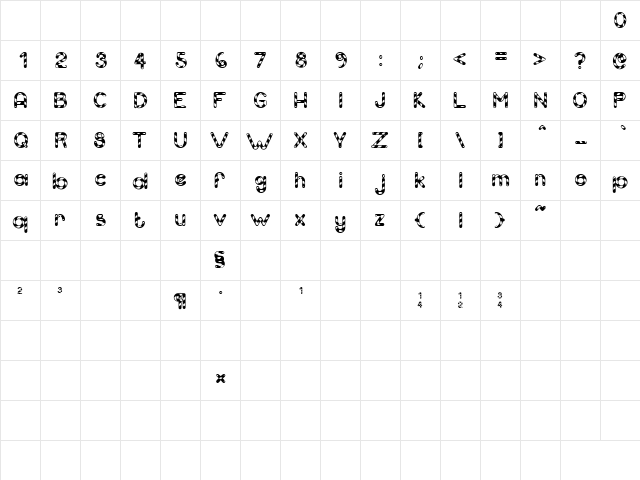
Candy Cane (Unregistered) Regular
Design Context for Candy Cane (Unregistered) Typeface
Candy Cane (Unregistered) is a composed and adaptable typeface that performs quietly and consistently across a wide range of design contexts.